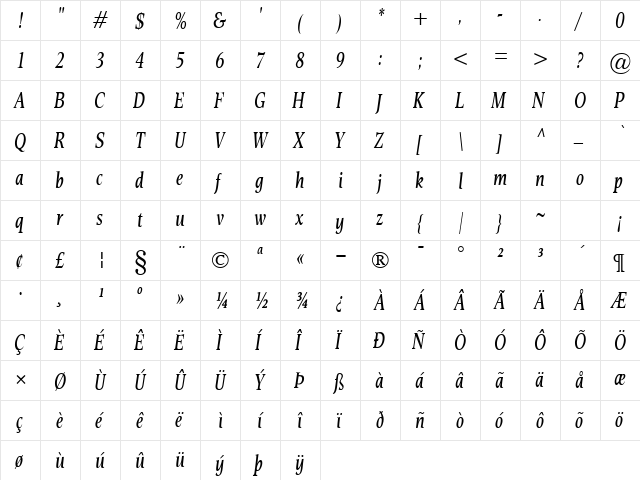
Esperanto Cond Italic
Design Context for Esperanto Cond Typeface
Esperanto Cond offers clean, dependable letterforms without strong stylistic allegiance, making it a practical choice for designers who need flexibility. Its italic angle brings a sense of urgency and motion to the letterforms. The condensed width makes it efficient for tight spaces without sacrificing legibility.
Pro Tip: Try Esperanto Cond for annotation and caption copy alongside an upright companion — the contrast in angle creates a dynamic but ordered typographic system.